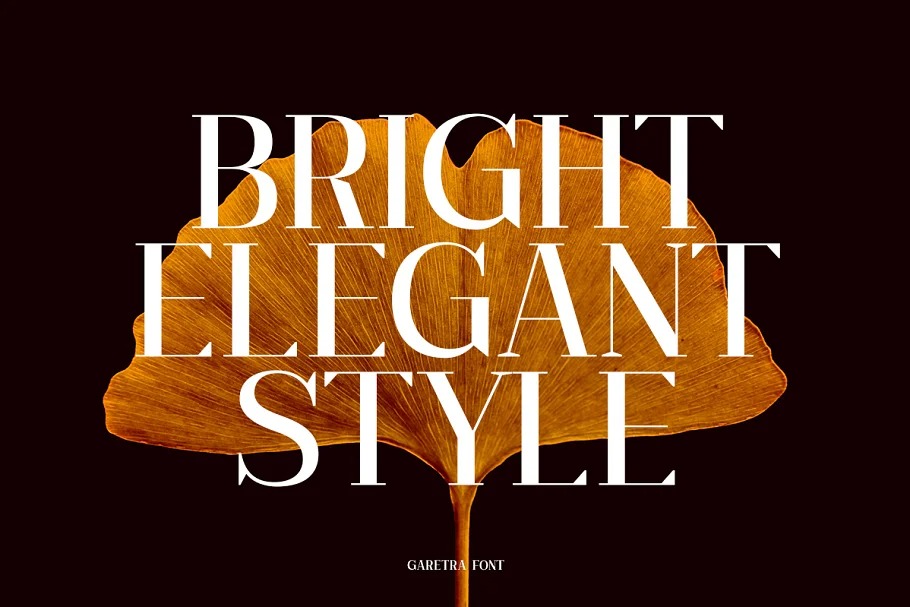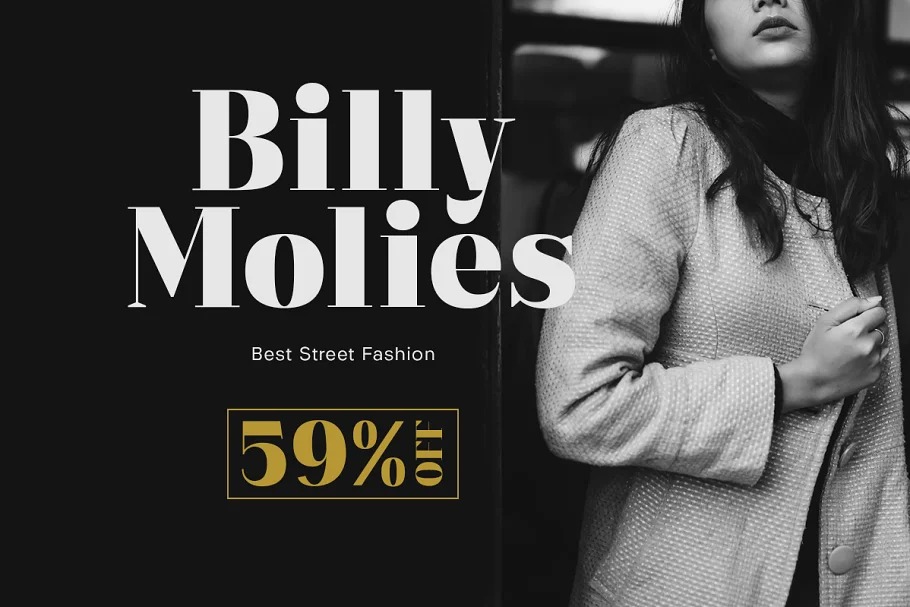
Garetra Serif Font
This is a serif typeface for display, constructed with sharp and curvy characters. It has 4 weight styles which you can play around to match your project, whether for a standout headline, or for a tagline, you name it. Perfect to be applied to the other various formal forms such as invitations, labels, logos, magazines, books, greeting / wedding cards, packaging, fashion, make up, stationery, novels, labels or any type of advertising purpose.